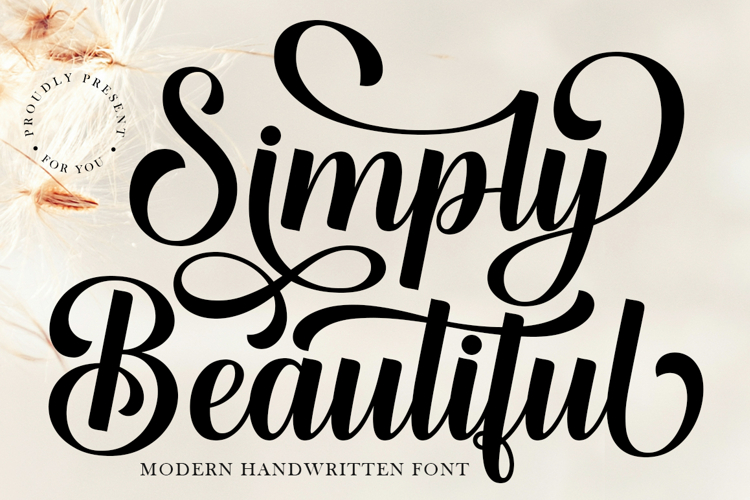
Introducing Simply Beautiful, an exquisite script typeface, pulsating with elegance and sophistication. It showcases delightful character variations, each drawing their spotlight. Marrying the timeless allure of luxury with the fresh strokes of modern aesthetics, Simply Beautiful has been meticulously crafted to exude an effortlessly classy demeanor. Whether you’re looking to infuse a refined charm into your designs or seeking to turn mundane into marvelous, Simply Beautiful is your go-to script font.